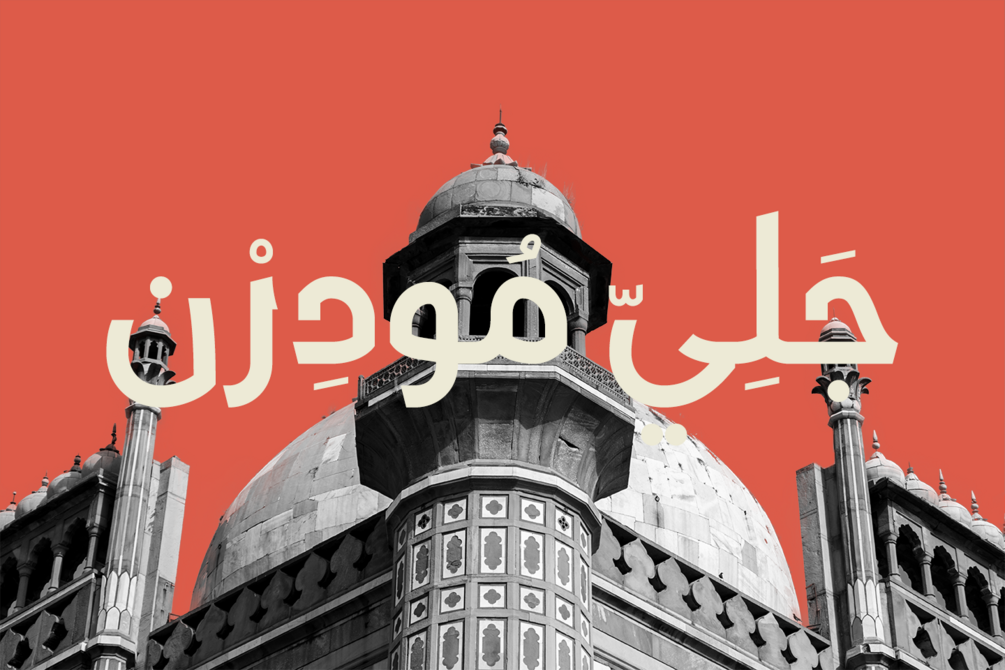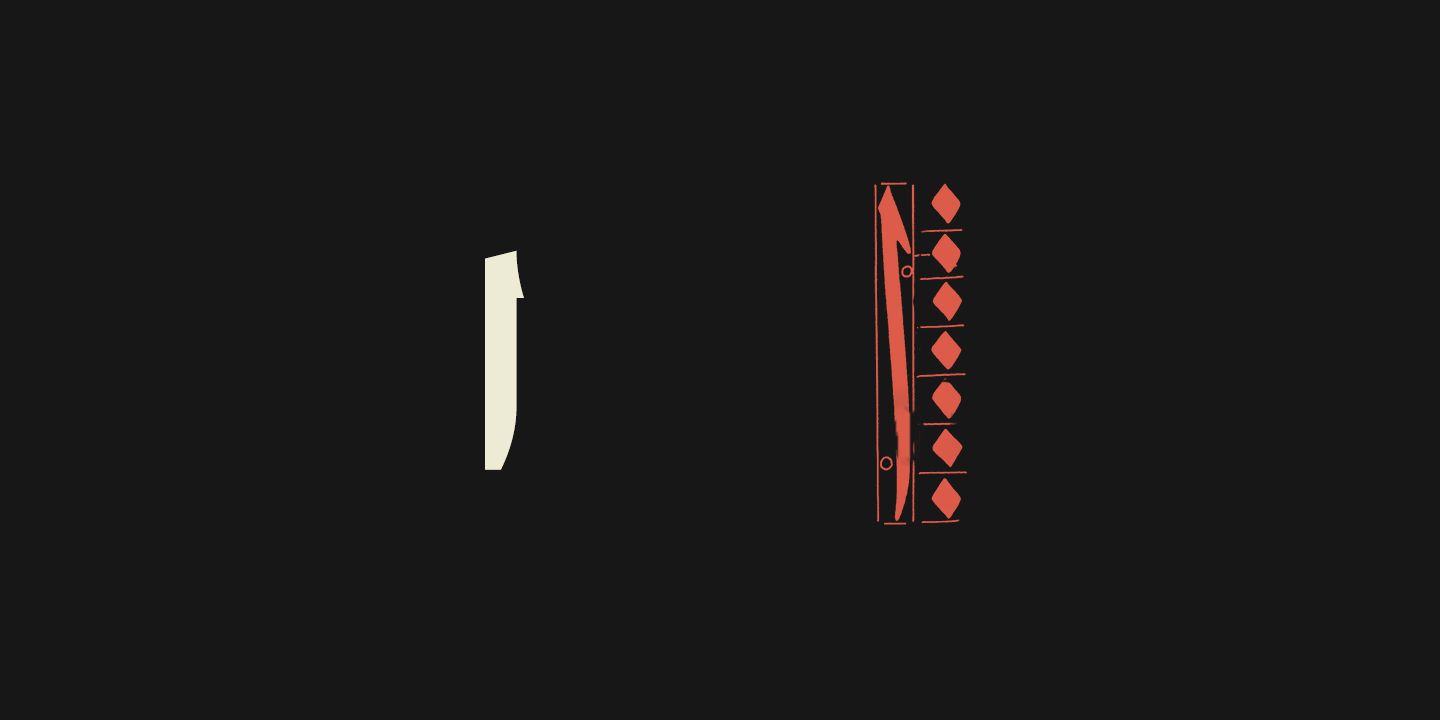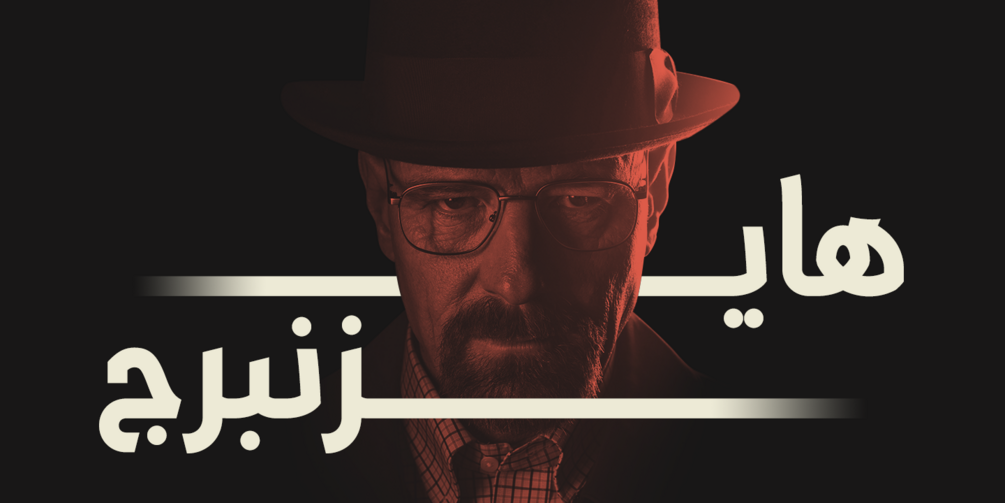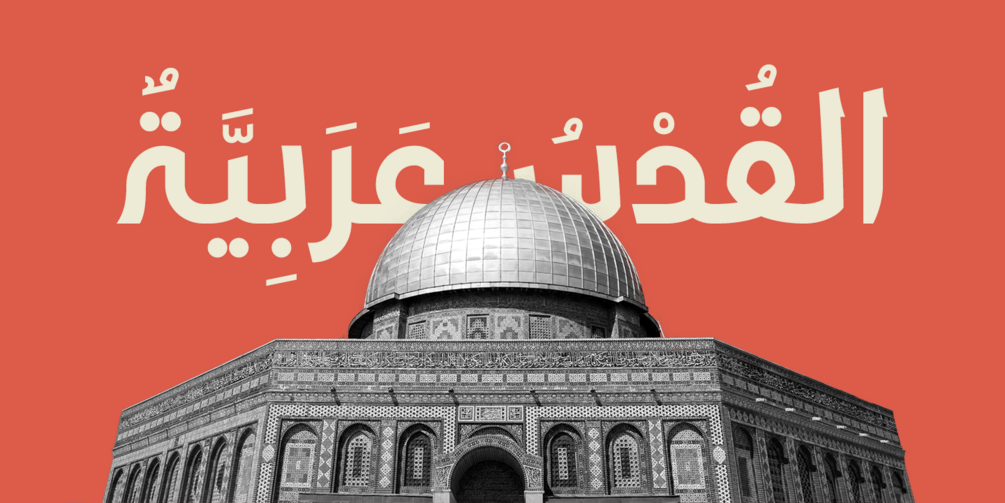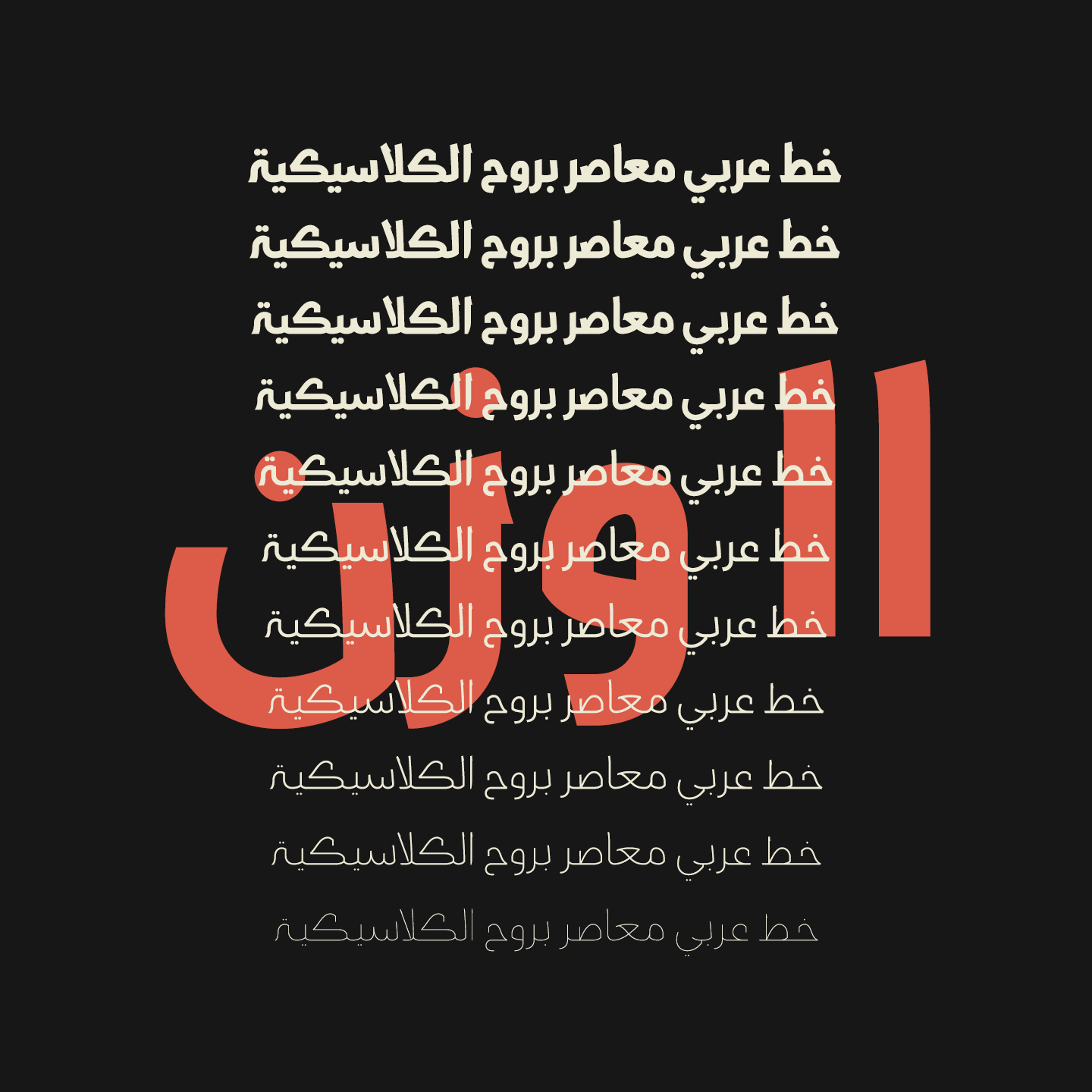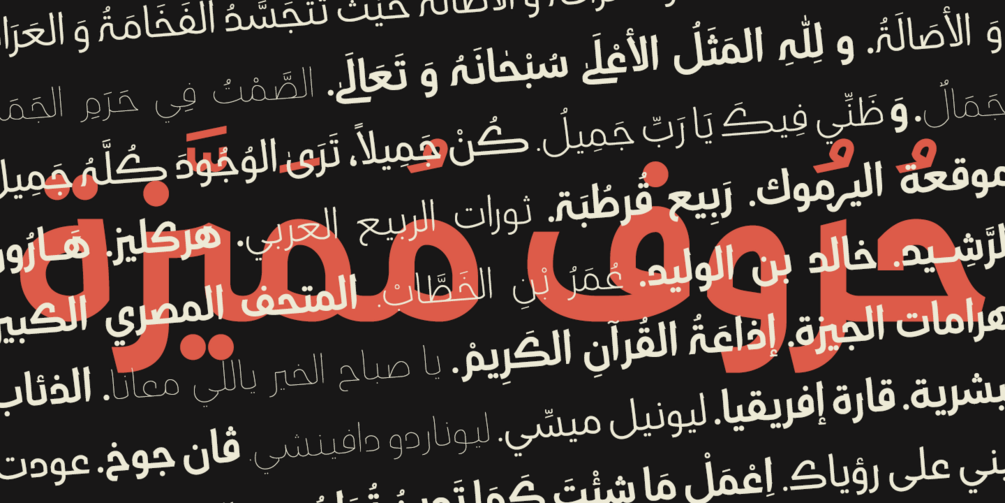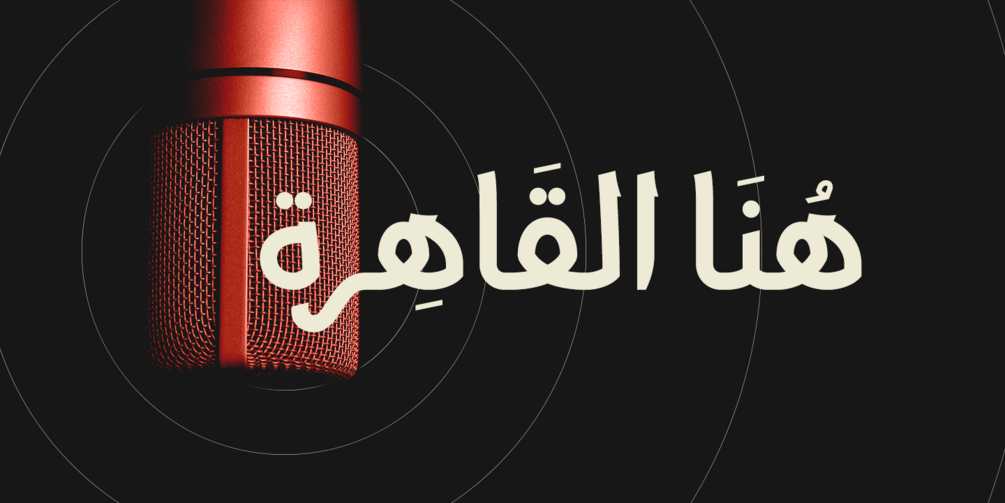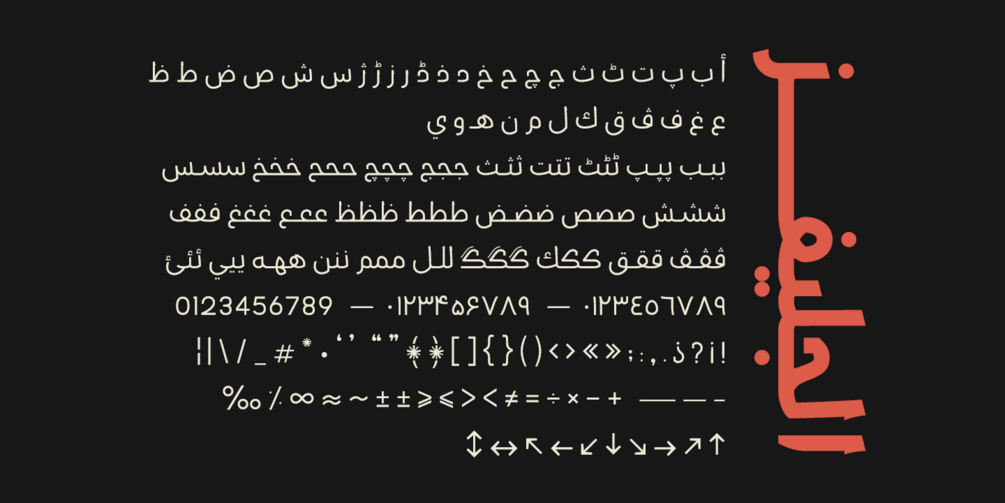
Gali Modern Typeface
About Gali Modern ↘
A modern typeface inspired by classic Arabic thuluth calligraphy, Designed especially for body texts, headlines, and quotes.
Features you'll LOVE ↘
→ It's a unique design inspired from thuluth script in a modern way.
→ Covers a good range of weights from thin to black.
→ Covers many uses for headlines and body text also.
→ Includes open type features like stylistic sets, required ligatures, discretionary ligatures.
Where Gali Modern works the BEST ↘
It works very well for both display and text usage. Which makes it perfect for a wide range of usages.